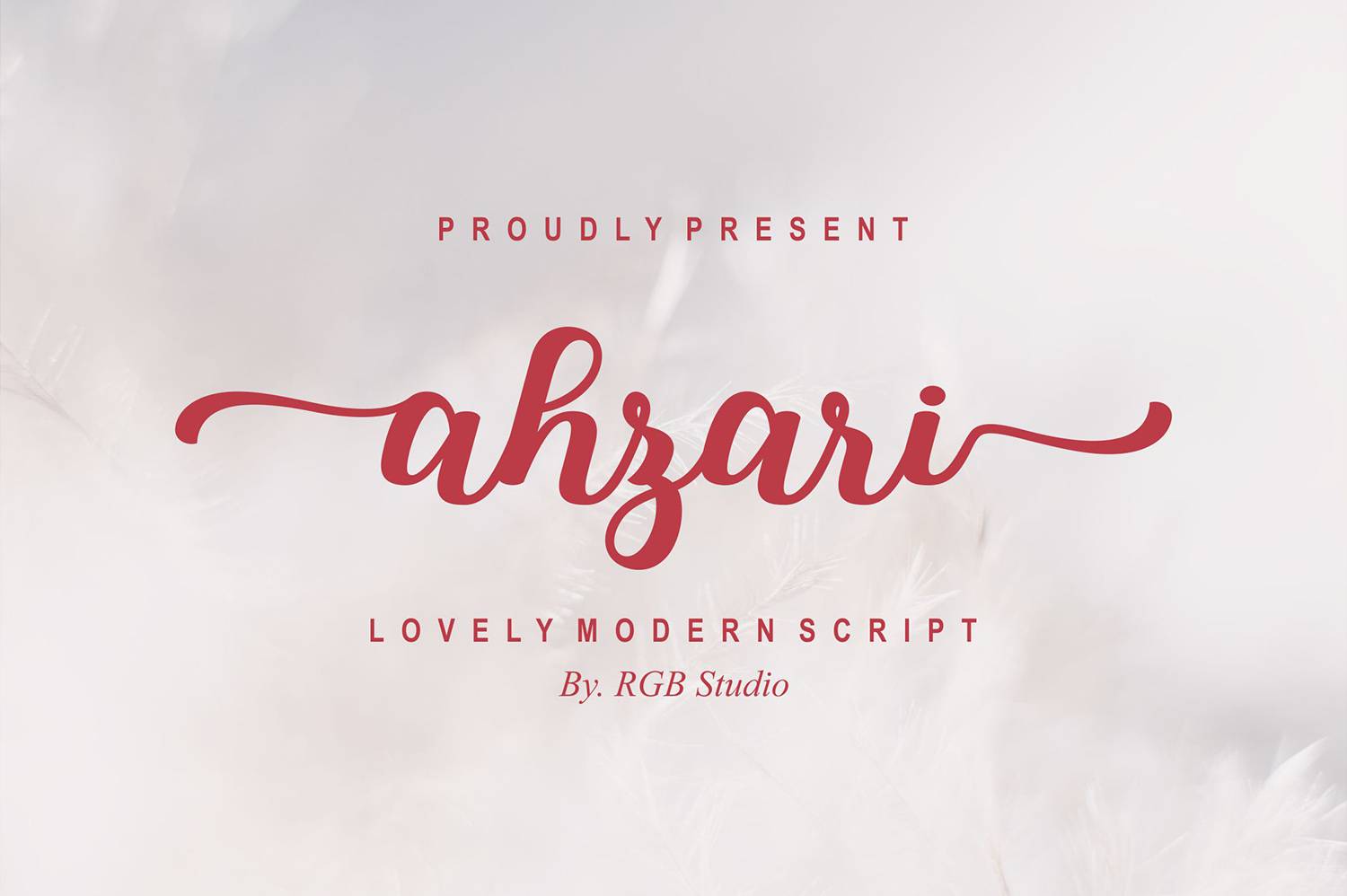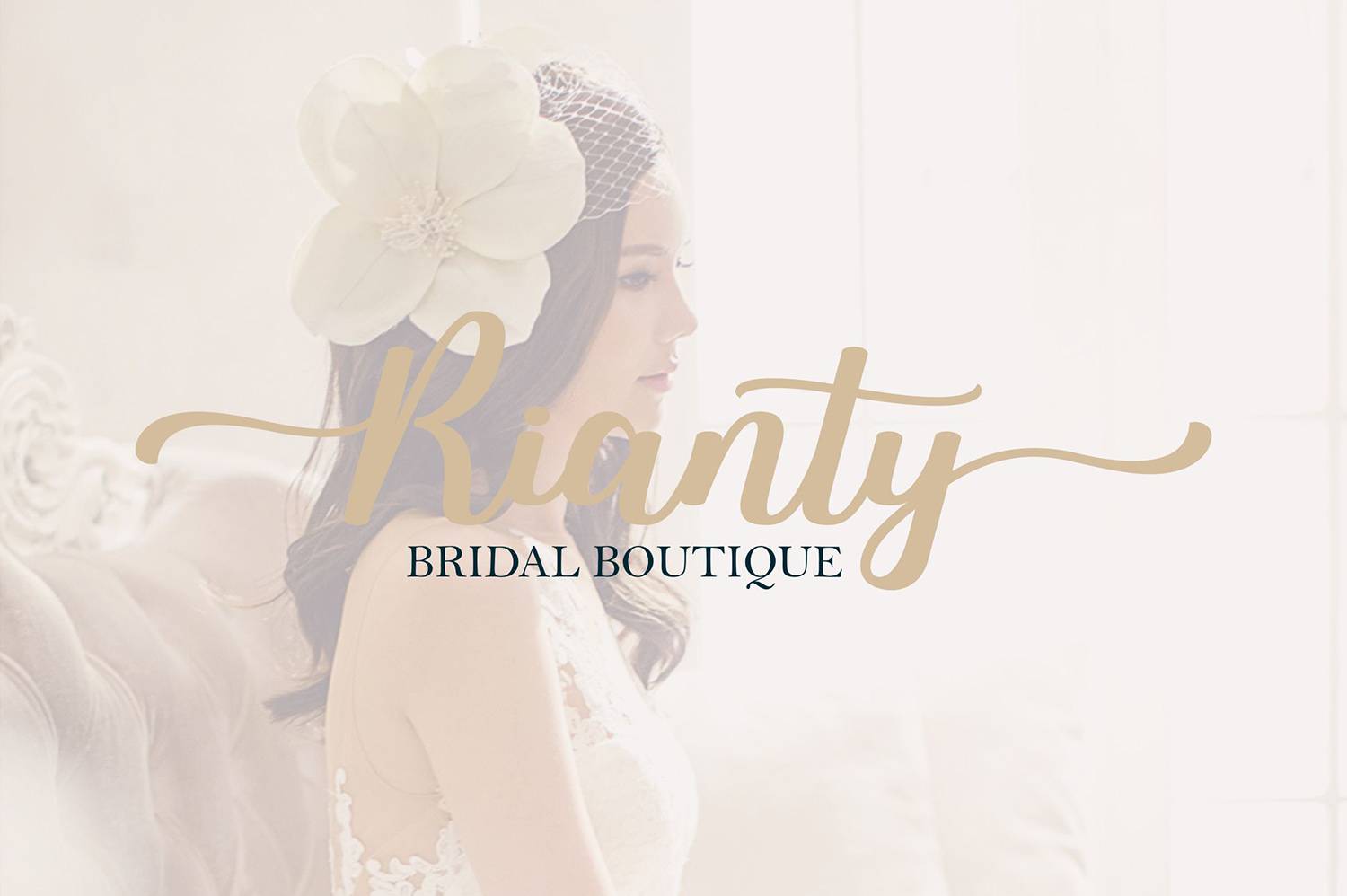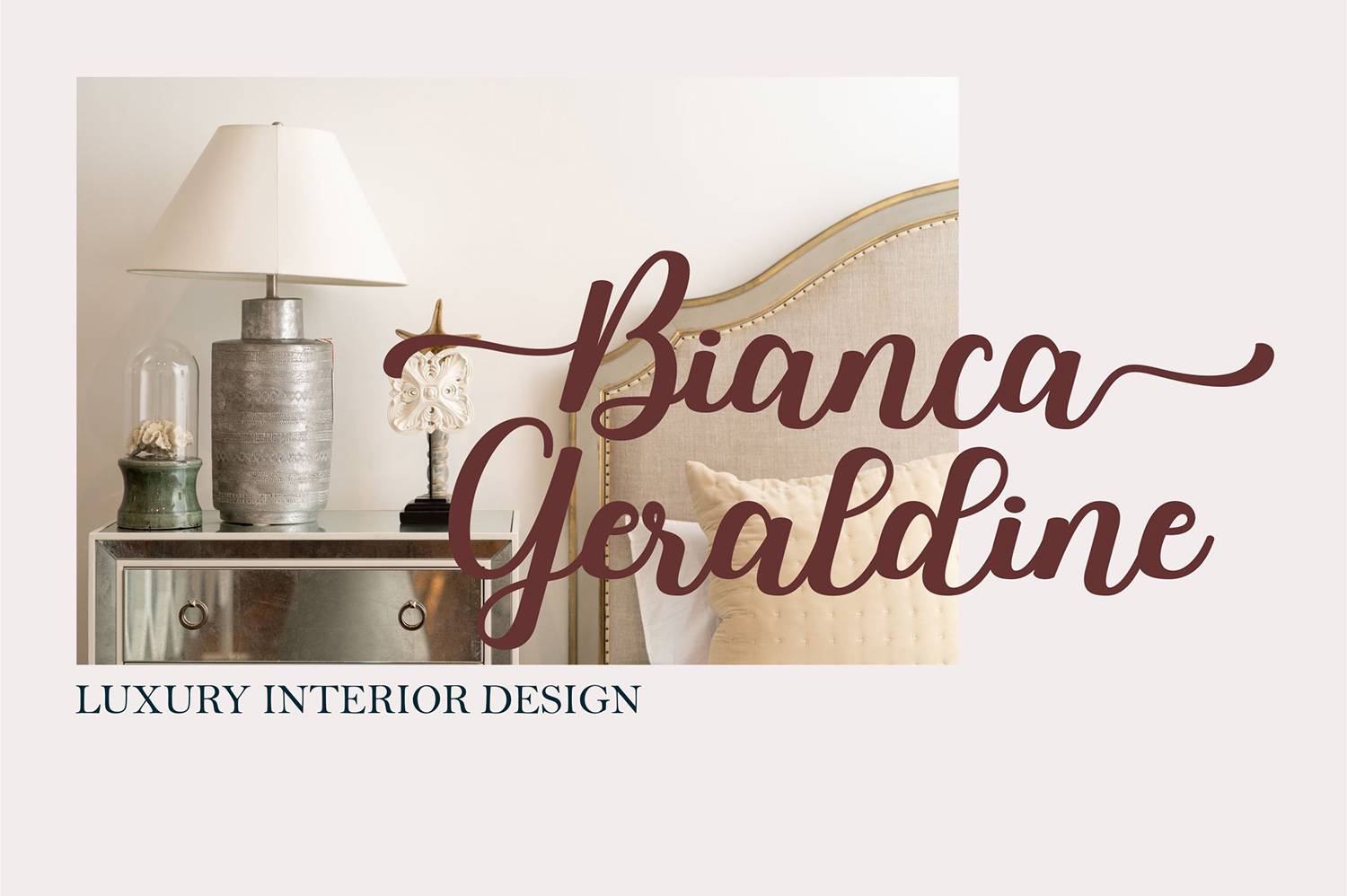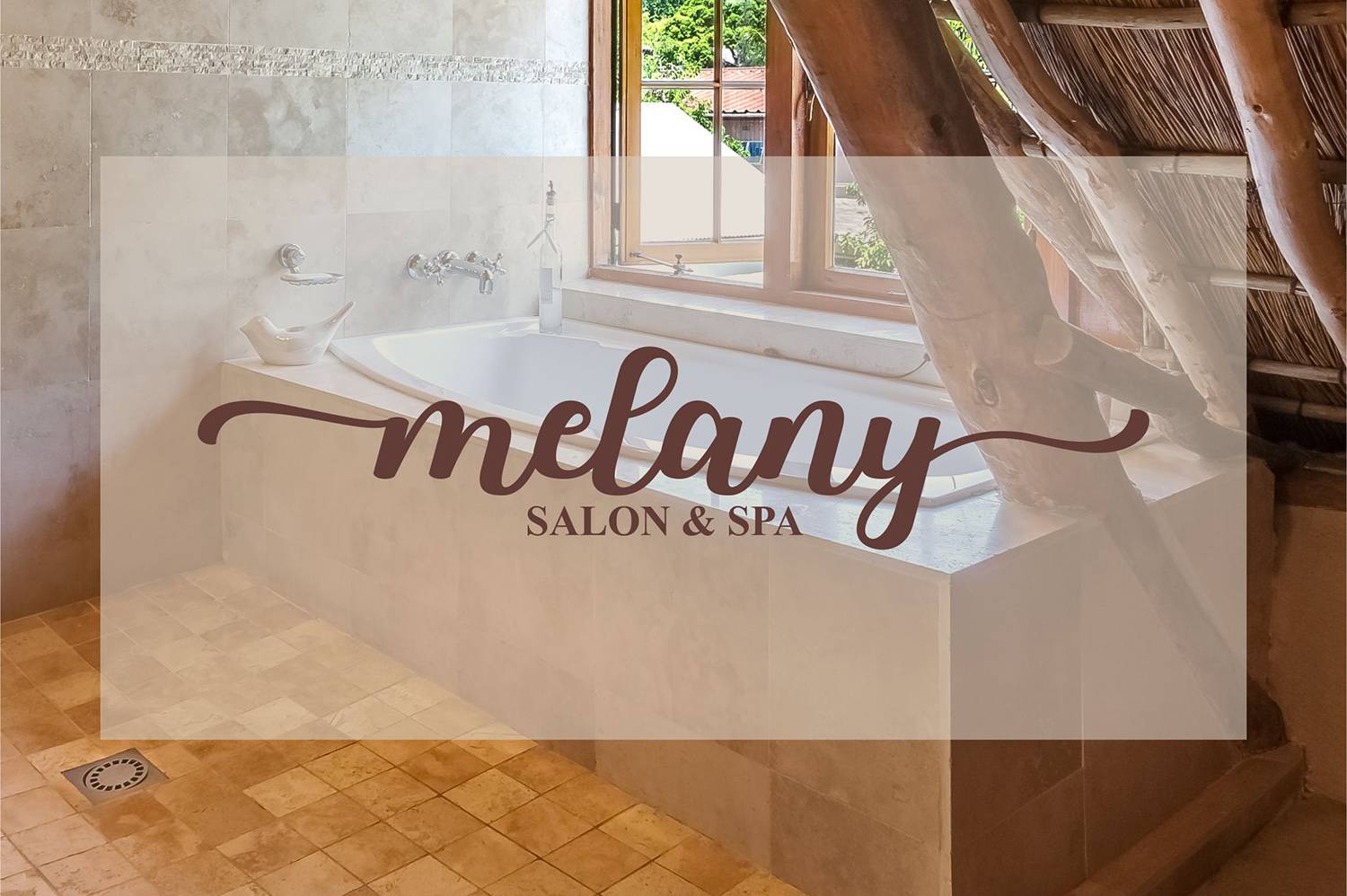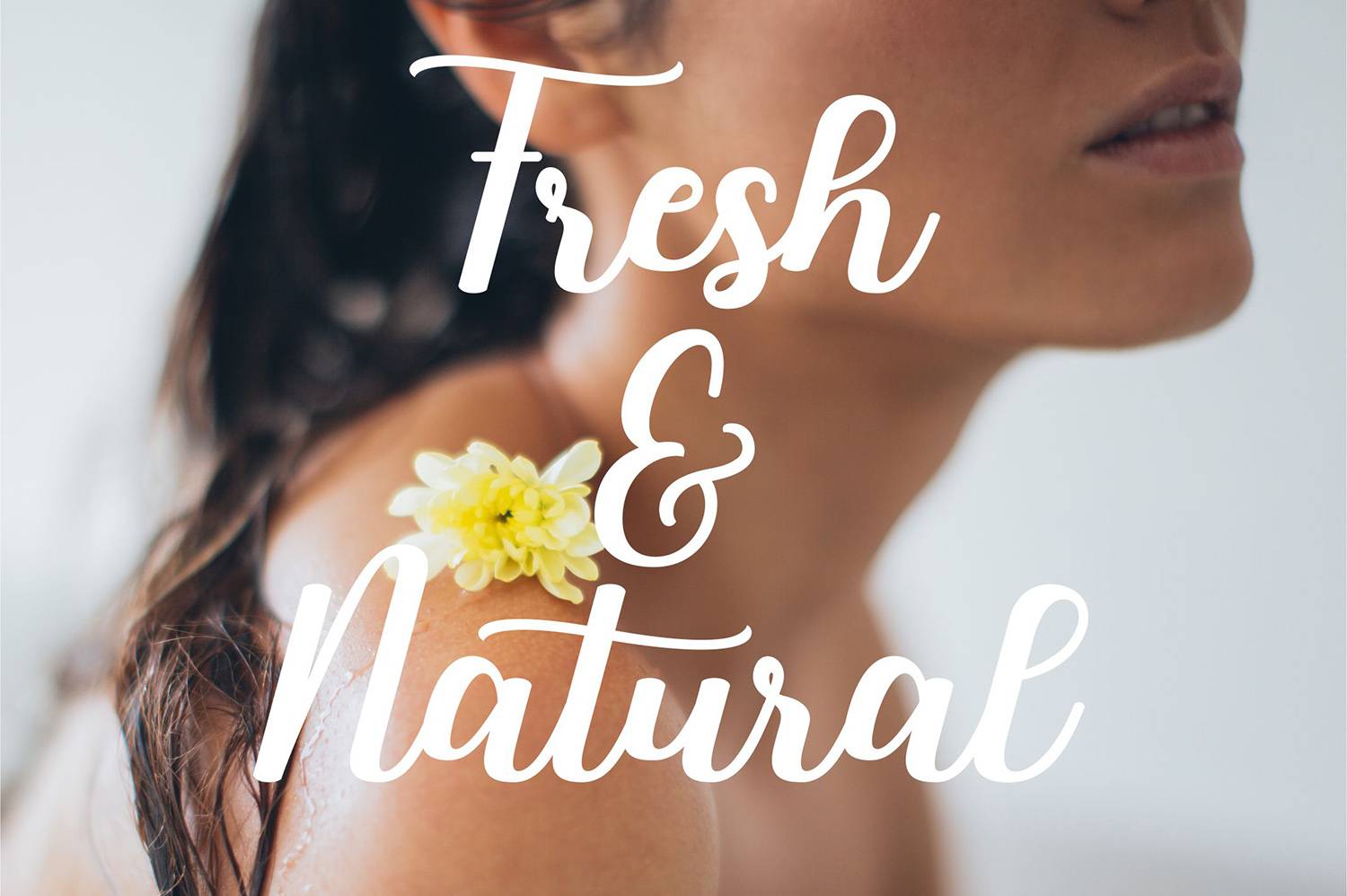
Ahzari is a charming script font with a smooth, flowing style that brings an elegant and personal touch to any design. Its consistent medium weight and gentle curves make it perfect for invitations, branding, and headlines, conveying warmth and sophistication without sacrificing readability. This font works well for projects that want to feel friendly yet refined, such as fashion, lifestyle, or creative business materials.
Ahzari Font
About Ahzari Font
| Font family | Ahzari Font |
| Designer | MOH. MA'IN |